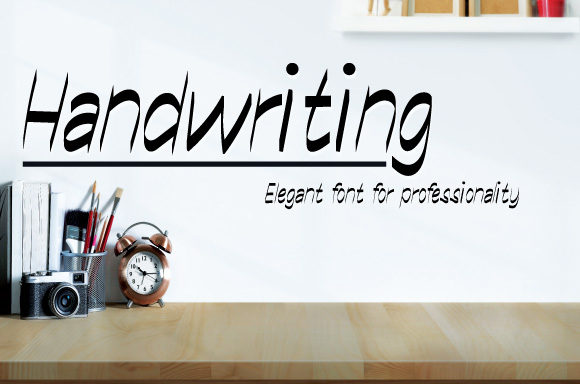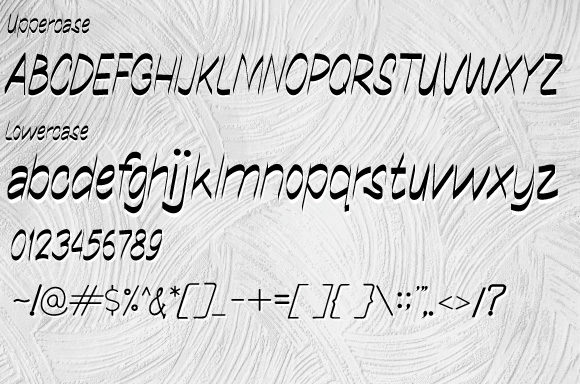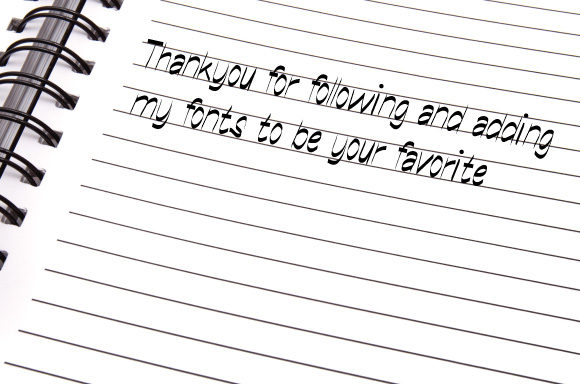
Introducing Flatelegant Font: The Perfect Handwritten Font for Your Designs
Are you a designer or crafter looking for a unique and simple handwritten font to elevate your designs? Look no further than Flatelegant Font! This beautiful font is perfect for adding a personal touch to your projects, and its natural and clean style makes it incredibly versatile.
What is Flatelegant Font?
Flatelegant is a one-of-a-kind handwritten font that is both elegant and effortless. Its simple, yet refined design makes it perfect for a wide range of projects, from wedding invitations and branding materials to craft tutorials and social media graphics.
The Benefits of Using Flatelegant Font
So, what sets Flatelegant Font apart from other fonts? Here are just a few benefits of using this beautiful font in your designs:
- Natural and Clean Style: Flatelegant Font has a natural, handwritten look that is both clean and elegant. This makes it perfect for designs where you want to add a personal touch without looking too formal or generic.
- Versatility: The simple design of Flatelegant Font makes it incredibly versatile. You can use it for a wide range of projects, from formal events to casual crafts.
- Easy to Read: Despite its elegant design, Flatelegant Font is incredibly easy to read. This makes it perfect for designs where you need to communicate information clearly, such as in instructional materials or signage.
How to Use Flatelegant Font in Your Designs
Ready to start using Flatelegant Font in your designs? Here are a few tips to get you started:
- Pair it with Other Fonts: Flatelegant Font pairs perfectly with other fonts, especially bold and sans-serif fonts. Try pairing it with a bold font for headings and using Flatelegant for body text.
- Use it for Titles and Headings: The elegant design of Flatelegant Font makes it perfect for titles and headings. Use it to add a touch of sophistication to your designs.
Who is Flatelegant Font for?
Flatelegant Font is perfect for a wide range of designers and crafters, including:
- Graphic Designers: If you’re a graphic designer looking for a unique and elegant font to add to your toolkit, Flatelegant Font is a great choice.
- Crafters: If you’re a crafter who loves to make things like cards, invitations, and other paper crafts, Flatelegant Font is a great addition to your design arsenal.
- Small Business Owners: If you’re a small business owner looking for a way to add a personal touch to your branding materials, Flatelegant Font is a great option.
Flatelegant Font is a beautiful and versatile handwritten font that is perfect for designers and crafters. Its natural and clean style makes it incredibly fitting for a wide range of designs, from formal events to casual crafts. Whether you’re a graphic designer, crafter, or small business owner, Flatelegant Font is a great addition to your toolkit.